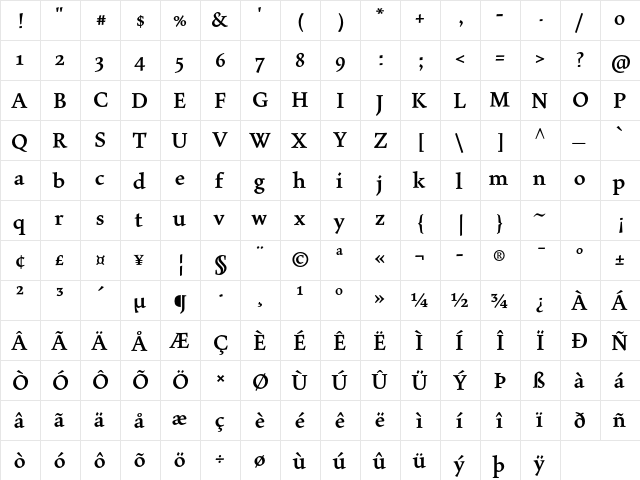
MaiolaPro Bold
| Foundry | FontShop International |
| Designer | Veronika Burian |
Design Context for MaiolaPro Typeface
MaiolaPro is a composed and adaptable typeface that performs quietly and consistently across a wide range of design contexts. Its bold stroke weight gives it real presence on the page.